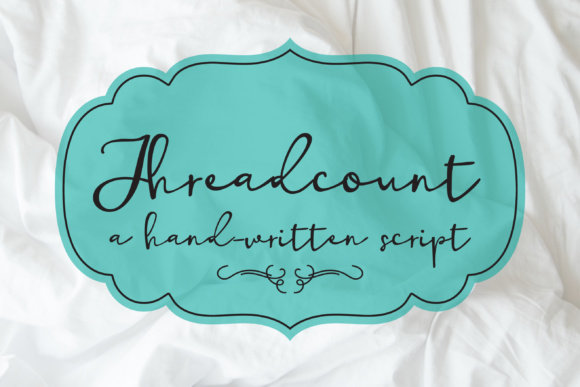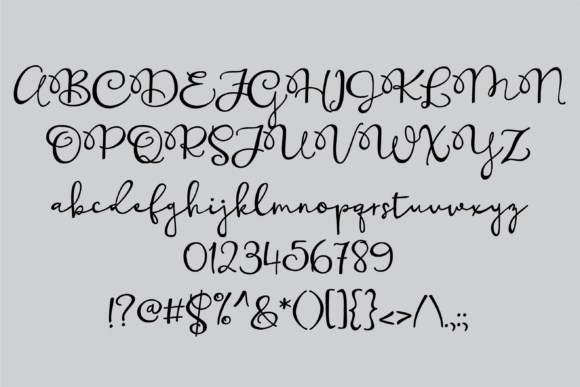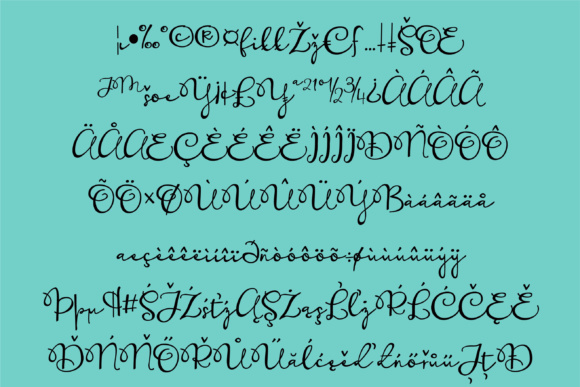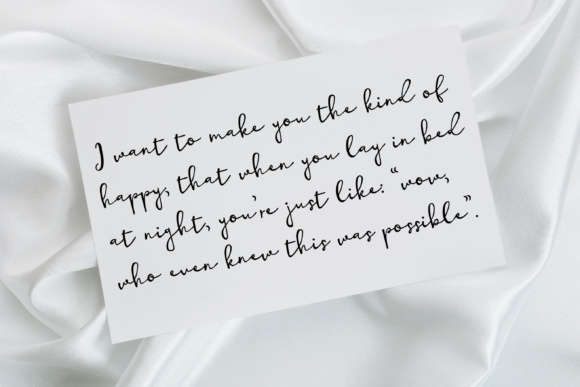
HomeScript FontsThreadcount Font Script Fonts Threadcount Font FacebookXPinterestWhatsApp Threadcount Font Poster 2 Threadcount Font Poster 3 Threadcount Font Poster 4 Threadcount Font Poster 5 About Threadcount Font This pretty hand-written script has a loopy uppercase and casual lowercase. DOWNLOAD ON CREATIVE FABRICAThis font is sold and delivered by Creative Fabrica. Font Canyon may earn a commission if you buy through this link. People also explored Munchberg Font Umar Font The Expert Font The Beach Font Natasyah Font Guardmigo Font Barelyn Script Dingbats Font Sea Water Font 323 0 TagsThreadcount Font Previous articleSuperlunacy FontNext articleThe Incisive Font LEAVE A REPLY Cancel reply Comment: Please enter your comment! Name:* Please enter your name here Email:* You have entered an incorrect email address! Please enter your email address here Website: Save my name, email, and website in this browser for the next time I comment. Personal Use Free Mail Ray Stuff Personal Use Free Read more about this font Saolice Personal Use Free Read more about this font Morning Miow Personal Use Free Read more about this font Pinky Personal Use Free Read more about this font BLOG Free vs Paid Fonts: Why Investing in Premium Fonts Is Worth It Free vs Paid Fonts: Why Premium Fonts Are Worth It in 2025 The debate of free vs paid fonts continues in the design world. While... Transform Your Website: Elevate Your Typography with 7 Best Web Font Generators Where to Buy American Fonts Online in 2024 Using Fonts in Digital Marketing: Tips to Strengthen Your Brand Identity